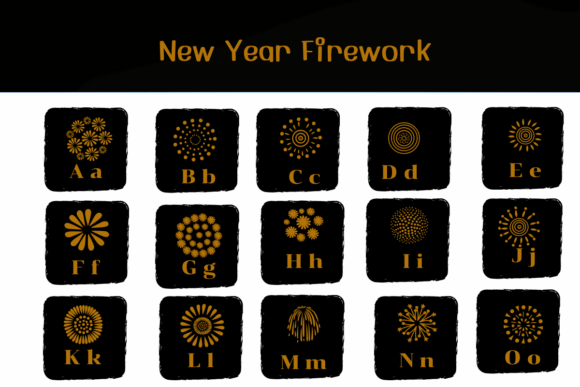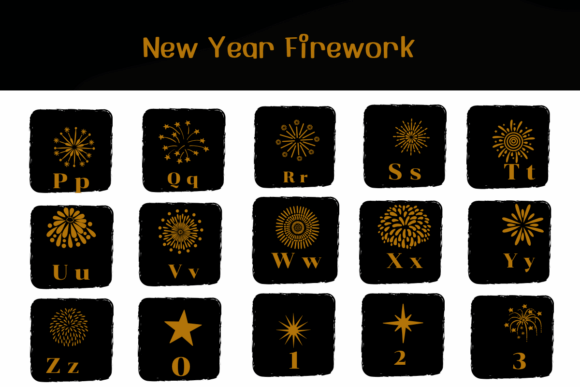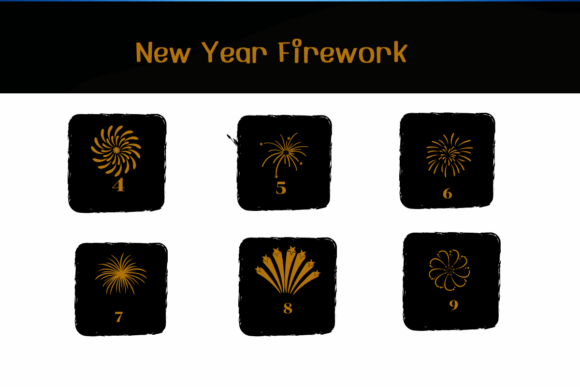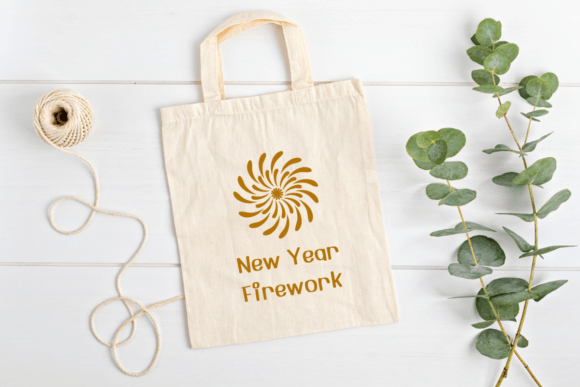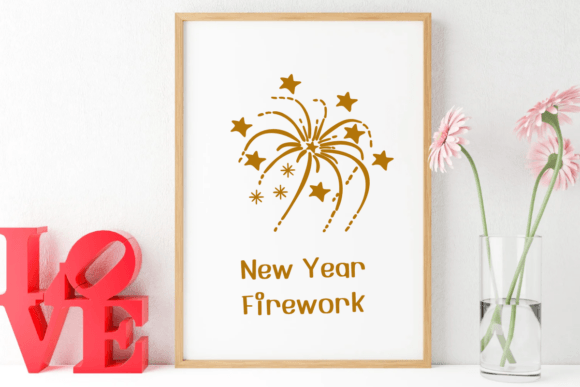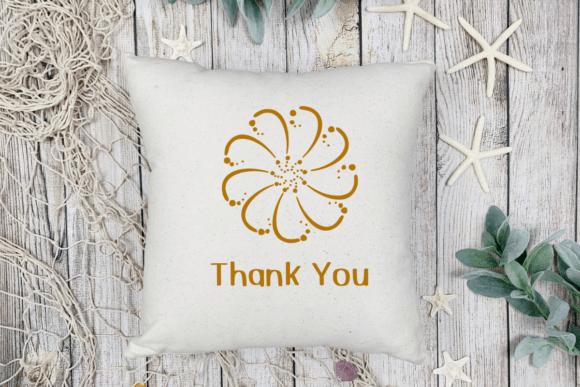
Introduction to New Year Firework Font
“New Year Firework” is a fun dingbat font featuring playful fireworks designs.
Each letter or symbol shows a unique firework, perfect for decorating party invitations, holiday cards, or festive projects Easy to use and full of celebration.
Key Features of New Year Firework Font